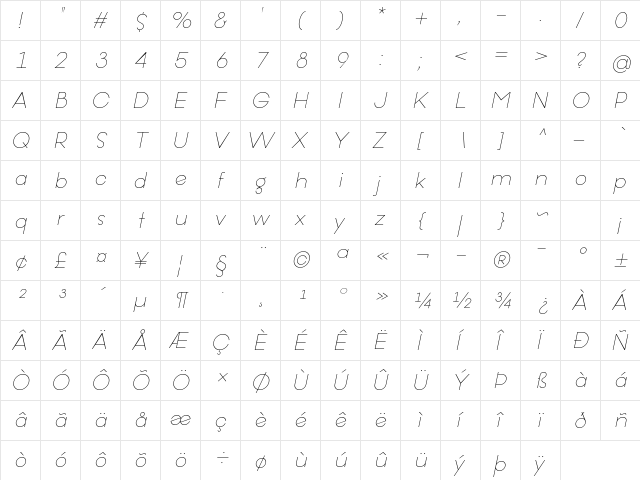
Offerings Italic
| Foundry | 7NTypes |
| Designer | Situjuh Nazara |
Design Context for Offerings Typeface
Offerings offers clean, dependable letterforms without strong stylistic allegiance, making it a practical choice for designers who need flexibility. The slanted form adds forward momentum and visual energy.
Pro Tip: Try Offerings for annotation and caption copy alongside an upright companion — the contrast in angle creates a dynamic but ordered typographic system.